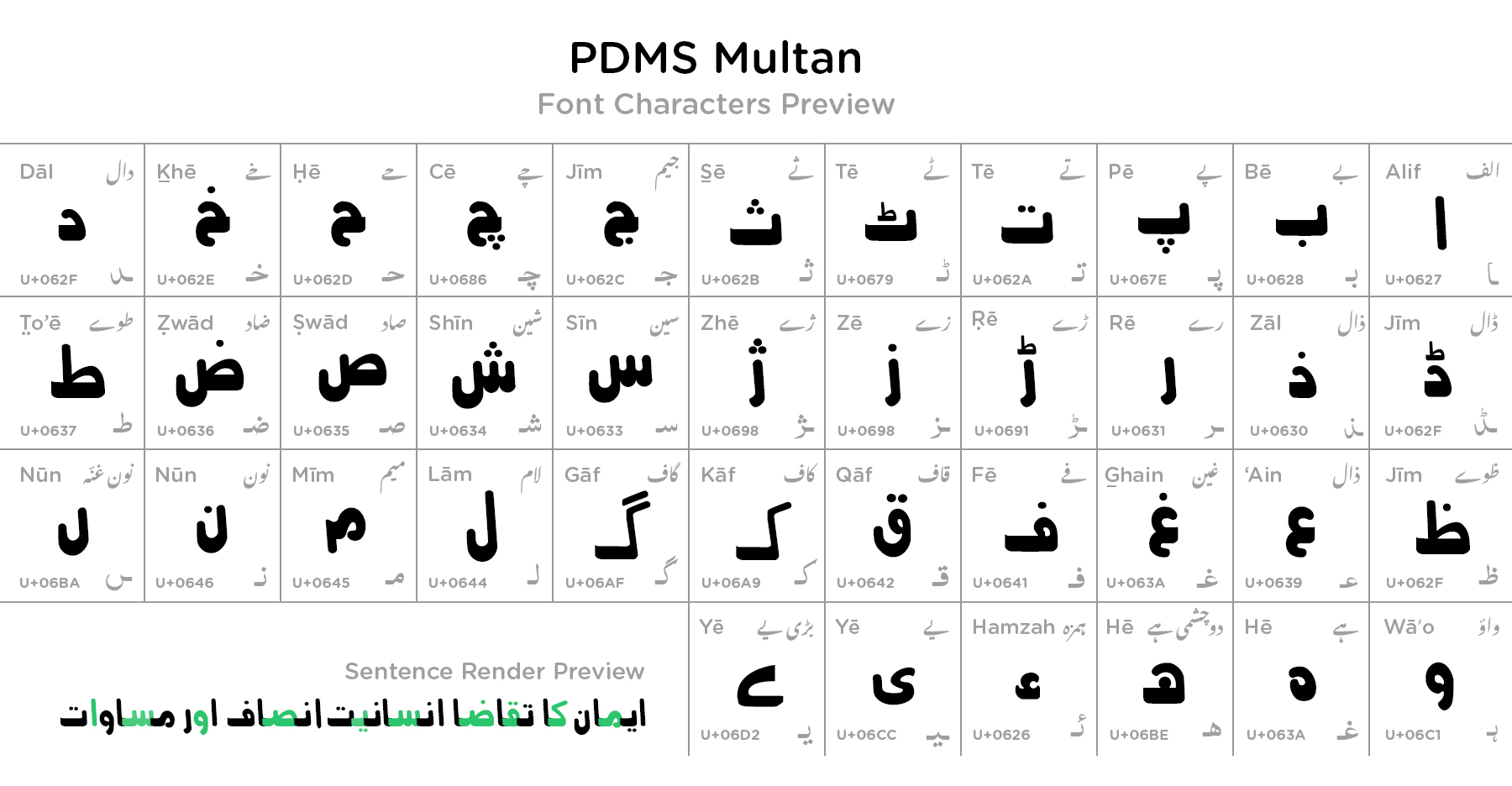
PDMS Multan, a dynamic font offering from Pakistan Data Management Services. Rooted in the elegance of Naskh script, this font boasts a unique blend of boldness and width, giving your text a playful yet impactful vibe. Released on November 14, 2019, this font is designed with 432 glyphs across various Unicode blocks, including Basic Latin, Arabic, Hebrew, and more. The font's thick and rounded letterforms stand out for its strong strokes and wide, condensed characters. While ideal for short bursts of text due to its bold nature, it excels in applications such as headings, kid branding, logos, and t-shirt designs. The font's legibility remains high on screens, although smaller resolutions may pose challenges due to its condensed letters.